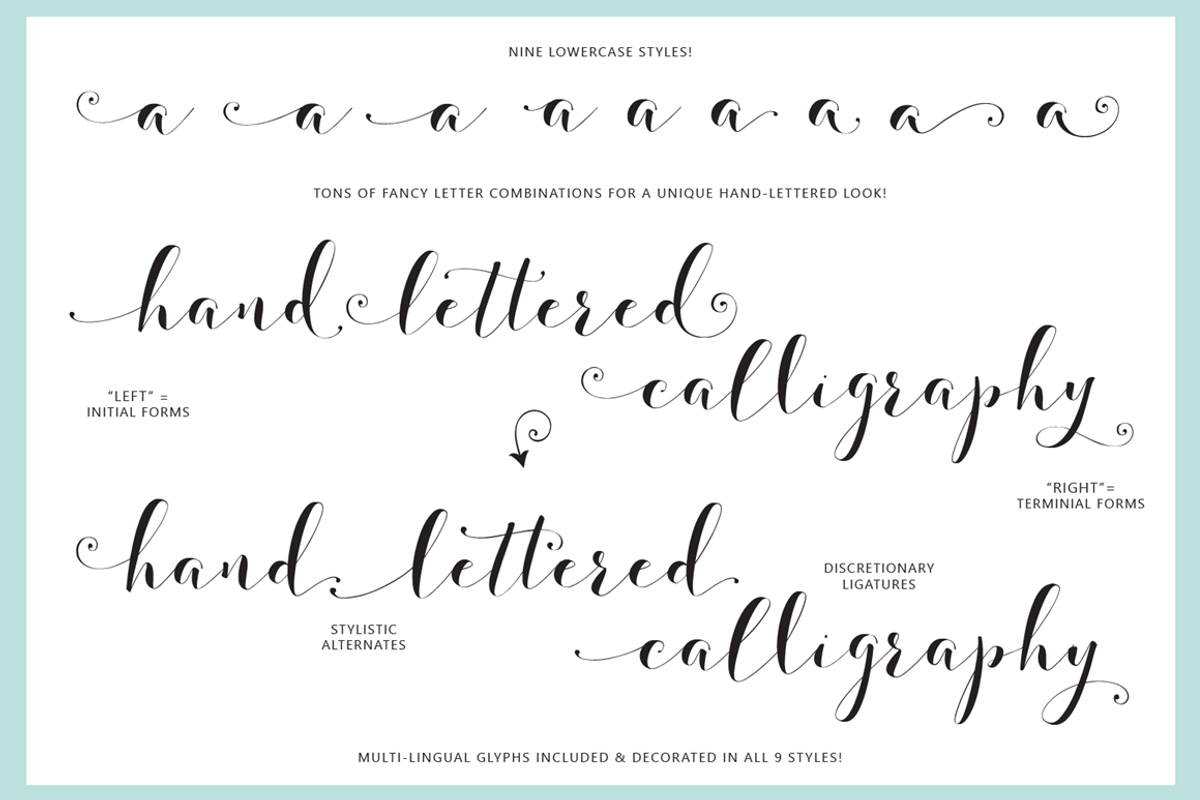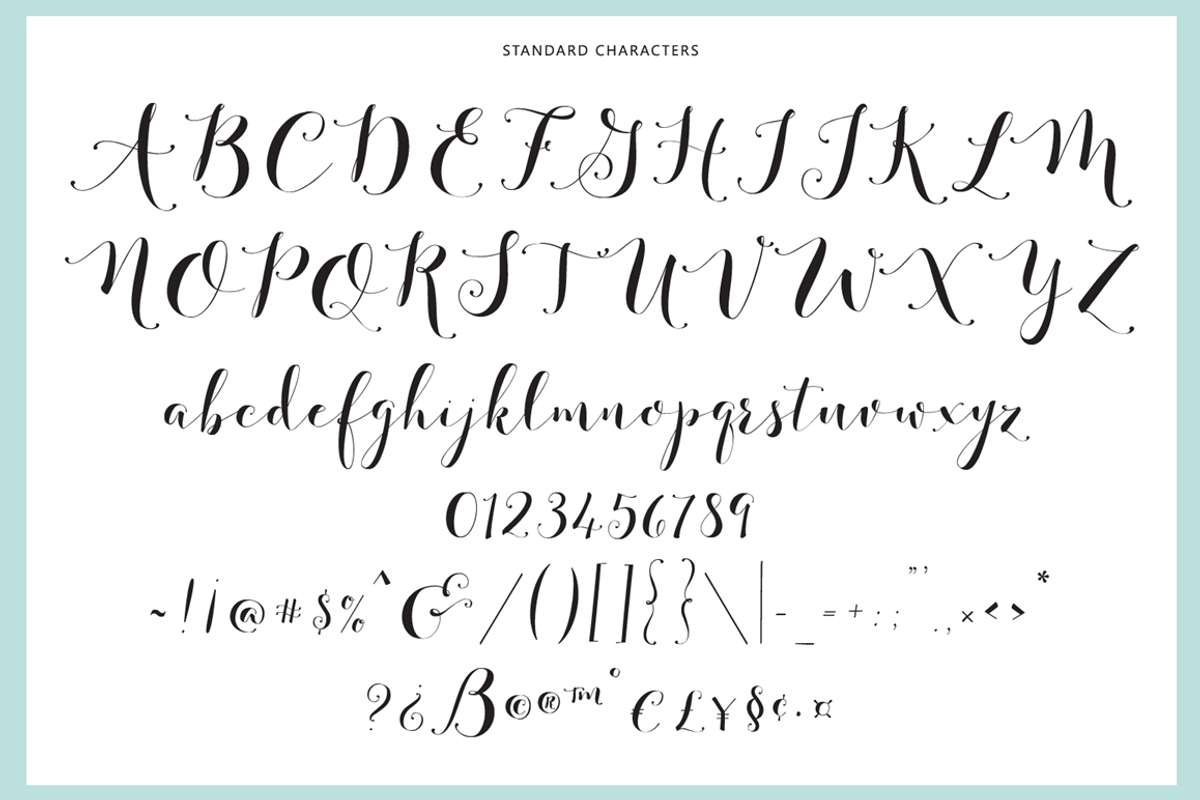
Fashionista Black
Introducing Fashionista Black! A Bold Version of the same contemporary and clean hand-lettered calligraphy style script. This new Bolder mix of modern and classic writing is soon to be your favorite for weddings, stationary, logos and more!
I've added even more! With hundreds of alternate letters and decorative stylistic letter combinations, everything you create will be completely unique. And it's so much fun to create your own hand-lettered text styles.
9 Lower-case styles
Ampersands, Catchwords and Greetings
Stylistic Common Letter Combinations
Multi-lingual Glyphs
(Latin-1 Supplement) ÀÁÂÃÄÅÆÇÈÉÊËÌÍÎÏÝ ÑÒÓÔÕÖØŒÙÚÛÜ àáâãäåæçèéêëìíîïñòóôõöðøœùúûüýÿ
(Latin Extended-A) ĀāĂ㥹ĆćĈĉĊċČčĎďĐĒēĔĕĖėĘęĚěĜĝĞğĠġ ĤĥĨĩĪīĬĭĮįİıĹ弾ĿŀŃńŇňʼnŌōŎŏŐŐőŒœŔŕŘř ŚśŜŝŠšŤťŨũŪūŬŭŮůŰűŲųŴŵŶŷŸŹźŻżŽž
International and Special Punctuation